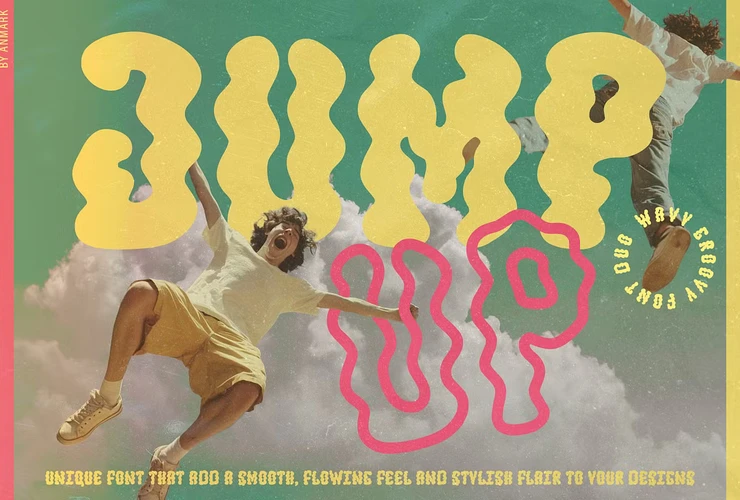
Jump Up: Add a Wavy Groovy Vibe to Your Designs
Jump Up is a retro-inspired font duo that exudes fun and bouncy energy. With its wavy, undulating letterforms, this font brings a sense of kinetic movement to any project, making it an ideal choice for designs that need a touch of effortless groove.
Why Choose Jump Up?
Jump Up isn’t just a font—it’s a mood. Whether you’re working on logotypes, stickers, packaging, or apparel, this font duo brings a lively and retro vibe that stands out. Its unique design adds a sense of dynamism to your work, making it perfect for creative projects that require a fun and energetic touch.
Key Features of Jump Up
Two Unique Styles: Jump Up comes in both Regular and Outline styles, giving you the flexibility to experiment with different looks in your designs.
Extensive Language Support: Jump Up includes support for English and European Latin-based languages, making it versatile for a global audience. Languages supported include French, Italian, Spanish, Portuguese, German, Swedish, Norwegian, Danish, Finnish, and more.
Versatile Applications: From logotypes and packaging design to Cricut projects and t-shirts, Jump Up is perfect for a wide range of creative applications. Whether you’re designing headlines, brand identities, or social media content, this font adds a unique touch.
Retro-Inspired Script: The wavy letterforms of Jump Up bring a retro-inspired aesthetic to your designs, making them feel both nostalgic and modern.
Logotypes and Branding: Jump Up’s unique style makes it perfect for creating memorable logos and brand identities that stand out.
Stickers and Packaging: The fun and energetic vibe of Jump Up is ideal for stickers and packaging designs that need to catch the eye.
Apparel and T-Shirts: Add a groovy touch to your apparel designs with Jump Up’s bouncy letterforms.
Posters and Magazines: Whether you’re designing for print or digital, Jump Up adds a lively energy to your layouts.
Social Media Graphics: Create engaging and playful social media content that resonates with your audience using Jump Up.